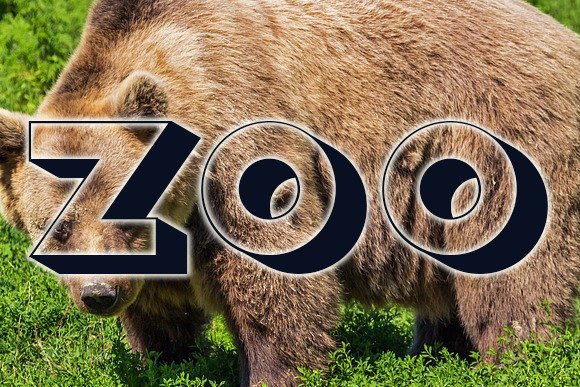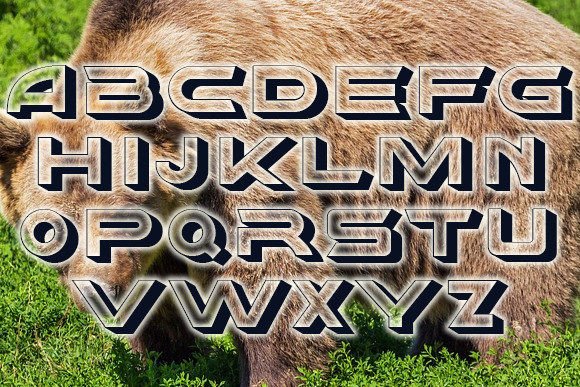
Introducing Baer Font: The Bold 3D Retro Style for Your Designs
Are you looking for a font that can add a unique touch to your designs? Look no further than Baer Font, a bold 3D font with a retro vibe that’s perfect for making a statement. In this article, we’ll dive into the features and benefits of Baer Font, and explore how you can use it to elevate your designs.
What is Baer Font?
Baer Font is a bold, 3D font that’s inspired by the retro styles of the past. With its chunky letters and vintage flair, it’s the perfect choice for designers who want to add a touch of nostalgia to their work. Whether you’re creating posters, t-shirts, or any other type of design, Baer Font is sure to turn heads.
Key Features of Baer Font
- Bold and Eye-Catching: Baer Font is a bold, attention-grabbing font that’s perfect for making a statement.
- Retro Style: With its vintage flair, Baer Font is perfect for designers who want to add a touch of nostalgia to their work.
- 3D Effect: The 3D effect of Baer Font adds depth and dimension to your designs, making them stand out from the crowd.
- Versatile: Baer Font can be used on a wide range of design projects, from posters and t-shirts to logos and branding materials.
How to Use Baer Font in Your Designs
Baer Font is incredibly versatile, and can be used in a wide range of design projects. Here are a few ideas to get you started:
- Posters: Use Baer Font to create eye-catching posters for events, promotions, or advertising campaigns.
- T-Shirts: Baer Font is perfect for designing custom t-shirts, hoodies, and other apparel.
- Logos and Branding: Use Baer Font to create bold, memorable logos and branding materials for your business or clients.
- Social Media Graphics: Baer Font can be used to create eye-catching social media graphics, such as Facebook posts, Instagram stories, and Twitter headers.
Benefits of Using Baer Font
So why should you choose Baer Font for your designs? Here are just a few benefits:
- Unique Style: Baer Font offers a unique, retro style that’s sure to set your designs apart from the crowd.
- Easy to Read: Despite its bold, 3D effect, Baer Font is surprisingly easy to read, making it perfect for use on a wide range of design projects.
- Customizable: Baer Font can be customized to fit your needs, allowing you to adjust the size, color, and style to suit your design.
Tips for Getting the Most Out of Baer Font
Here are a few tips for getting the most out of Baer Font:
- Experiment with Colors: Baer Font looks great in a wide range of colors, so don’t be afraid to experiment and find the perfect hue for your design.
- Play with Texture: Adding texture to your Baer Font design can add depth and interest, making it more engaging for your audience.
- Use it Sparingly: While Baer Font is bold and eye-catching, it can be overwhelming if used too much. Use it sparingly to create emphasis and draw attention to key elements of your design.
Baer Font is a bold, 3D font with a retro touch that’s perfect for adding a unique feel to your designs. With its versatility, customizability, and eye-catching style, it’s the perfect choice for designers who want to make a statement. Whether you’re creating posters, t-shirts, or any other type of design, Baer Font is sure to turn heads. So why not give it a try and see how it can elevate your designs?